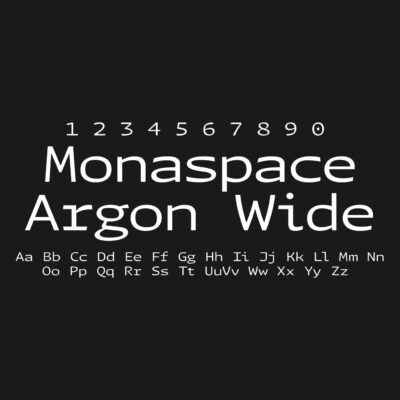
Monaspace Argon is a modern monospaced coding font from the Monaspace type family. It has a clean technical structure, readable spacing and a professional programming-focused appearance, making it useful for code editors, terminal windows, code screenshots, documentation, developer portfolios, programming tutorials, UI design and software-related visual projects.